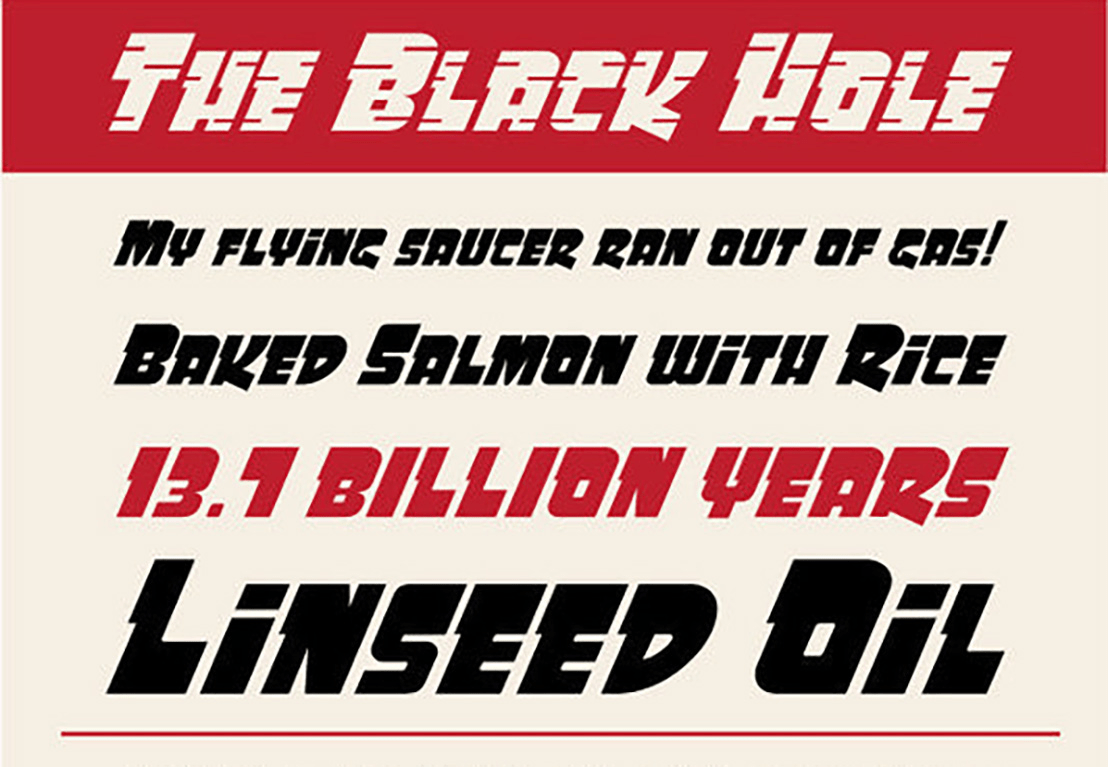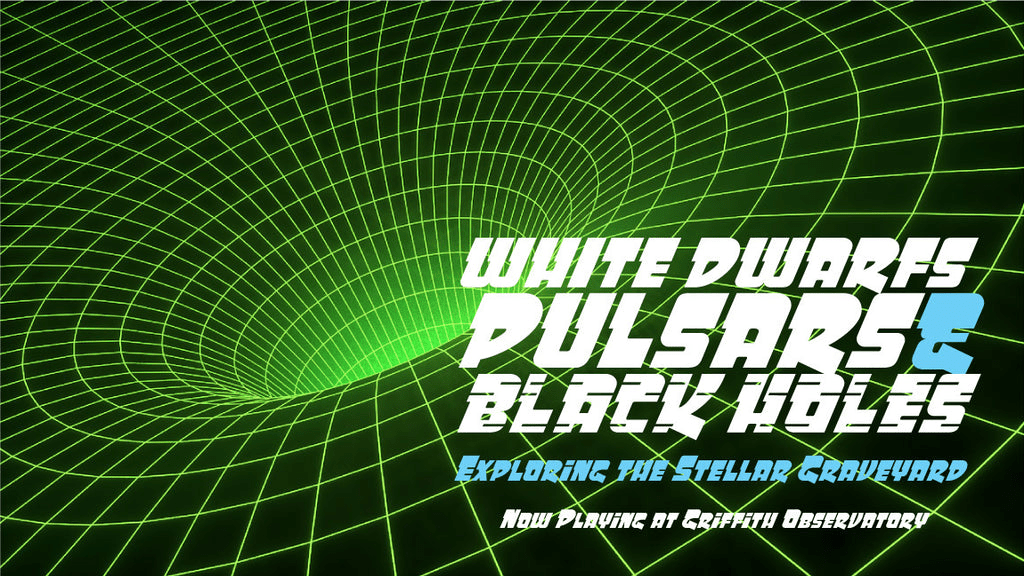
Event Horizon
Font Family by Jukebox
Event Horizon is an original Jukebox font inspired by a handlettered ad from the 1960s. Just like the region surrounding a black hole for which it's named, this font will pull you in with its irresistible charm. A fun take on space-age type, Event Horizon is perfect for any design that needs a touch of Sci Fi whimsy. The font includes a set of alternates with "streamlines" for an extra light-speed look!